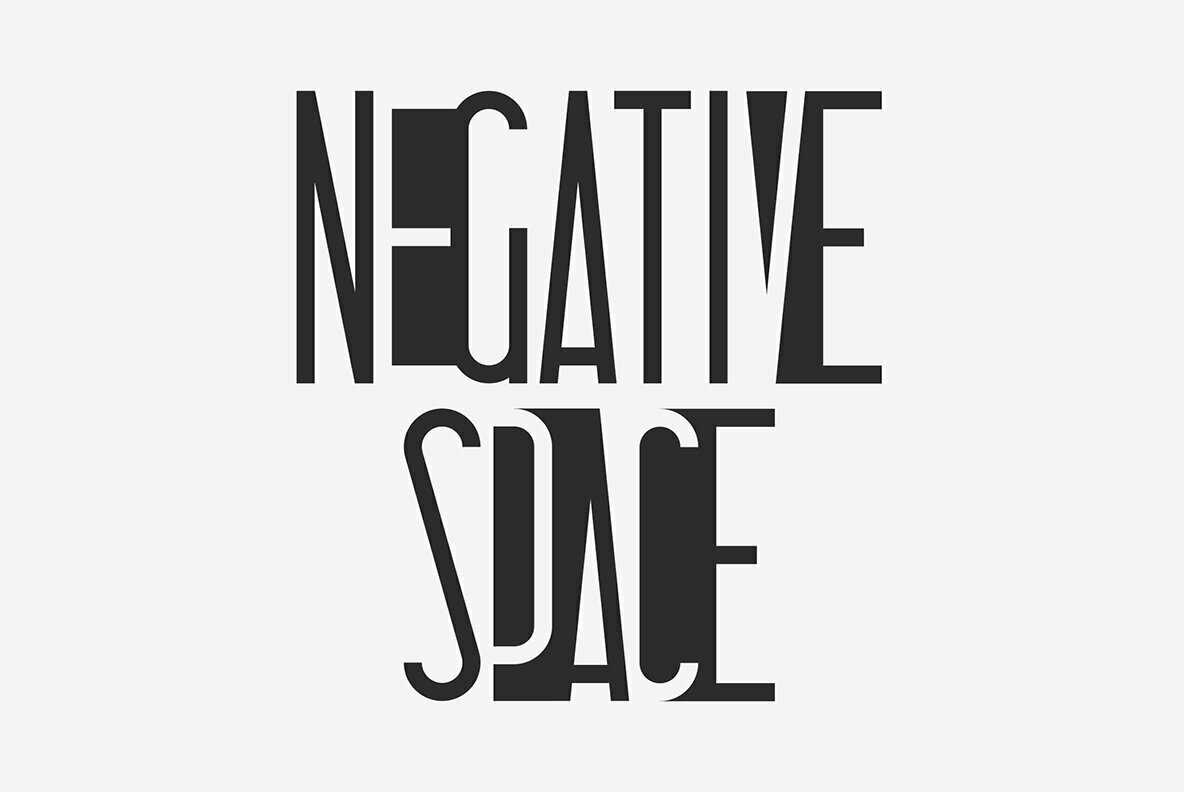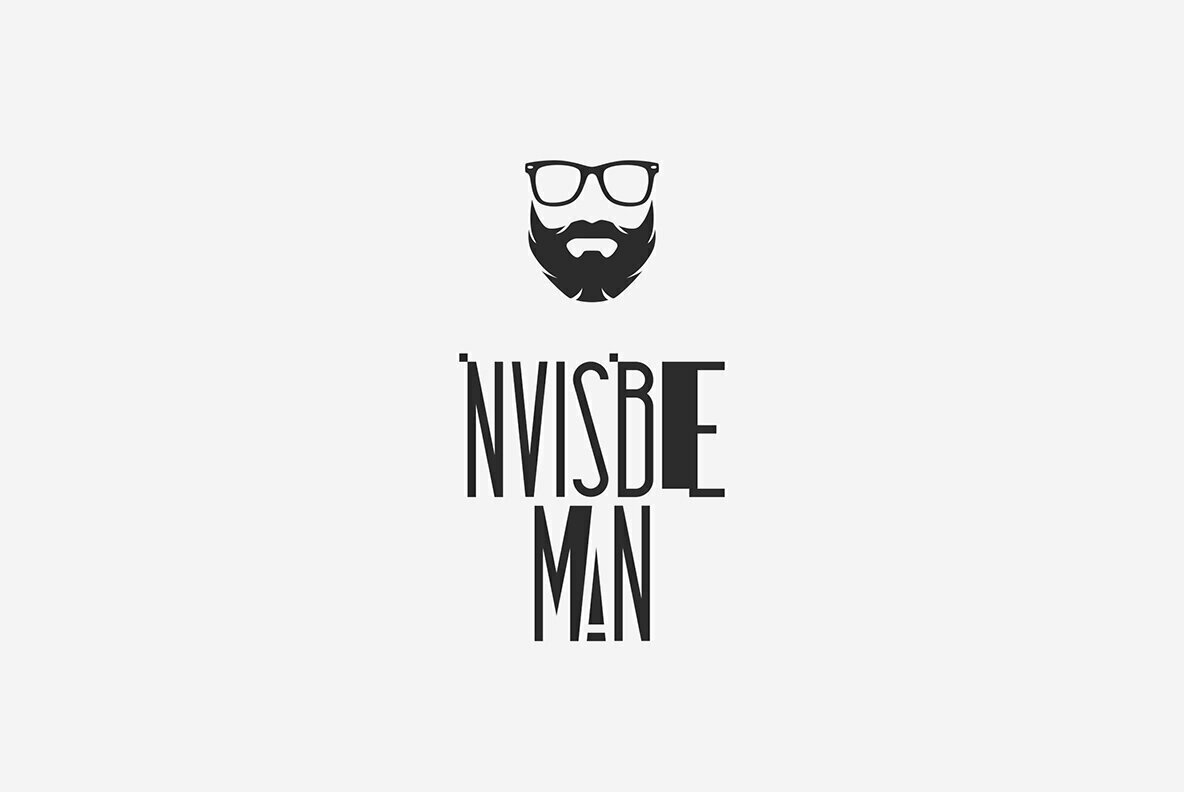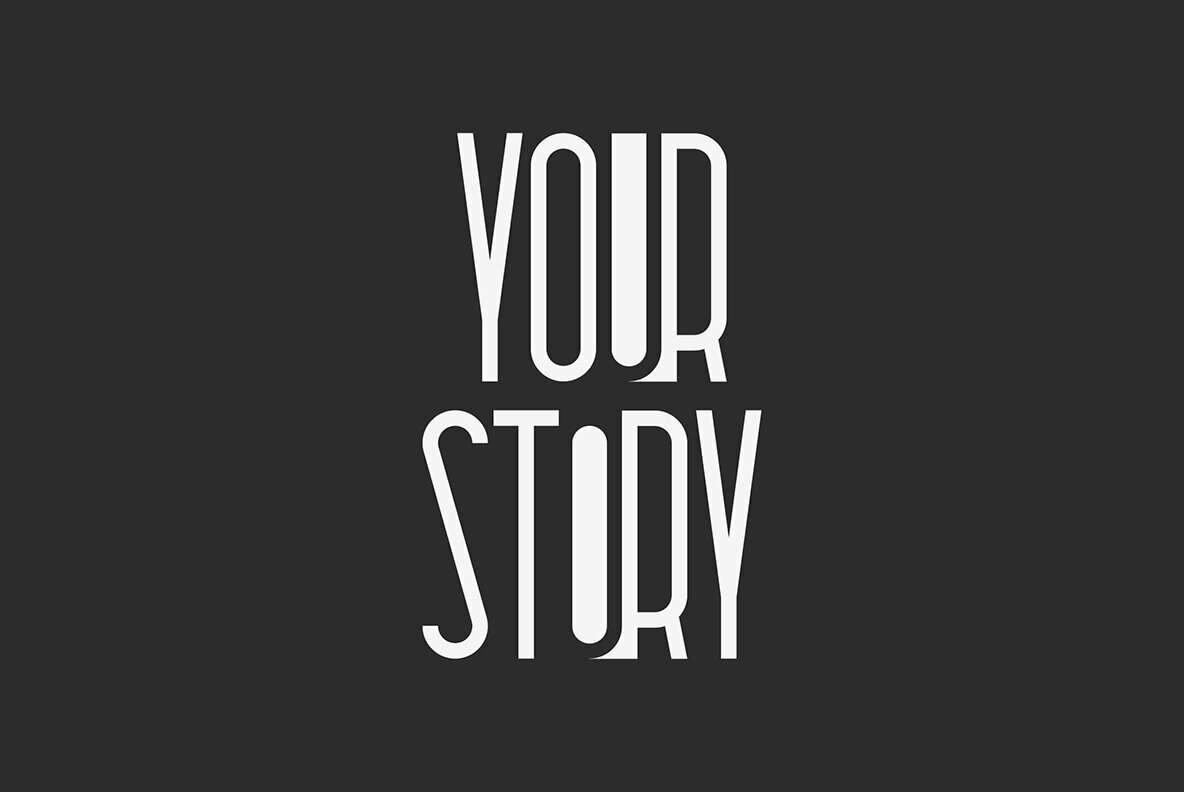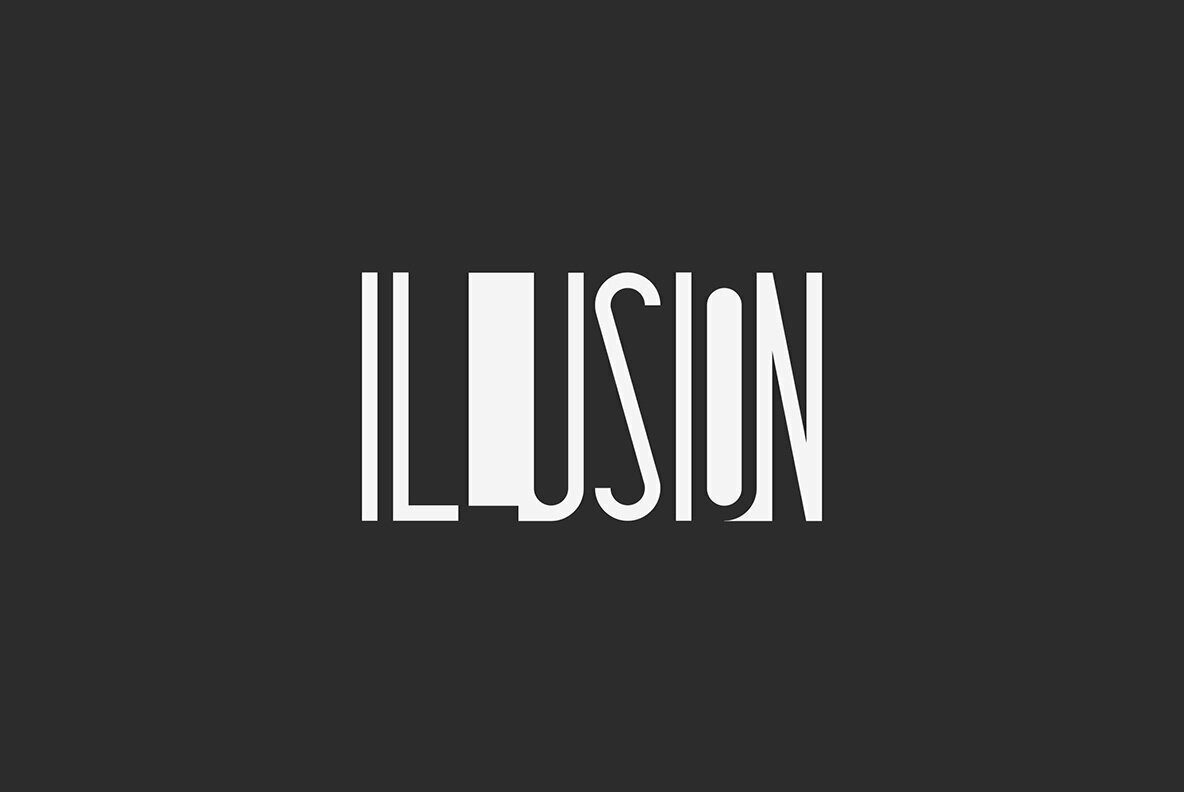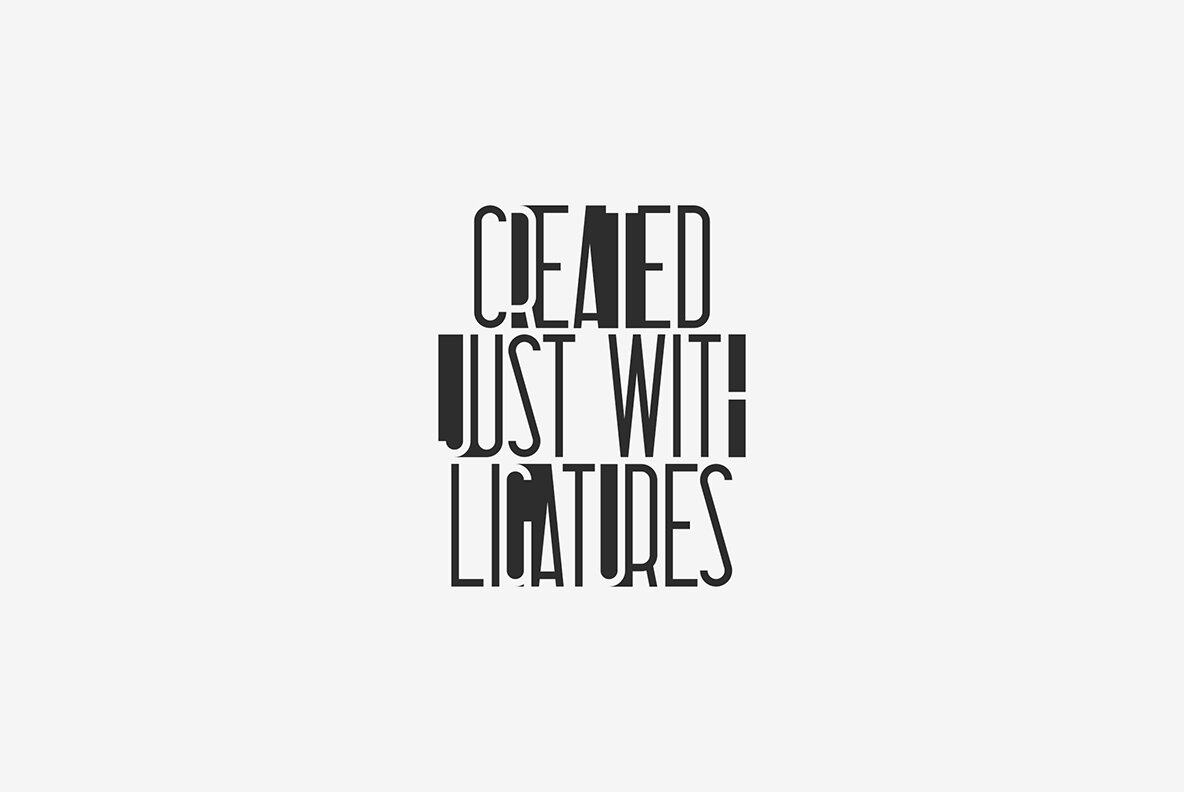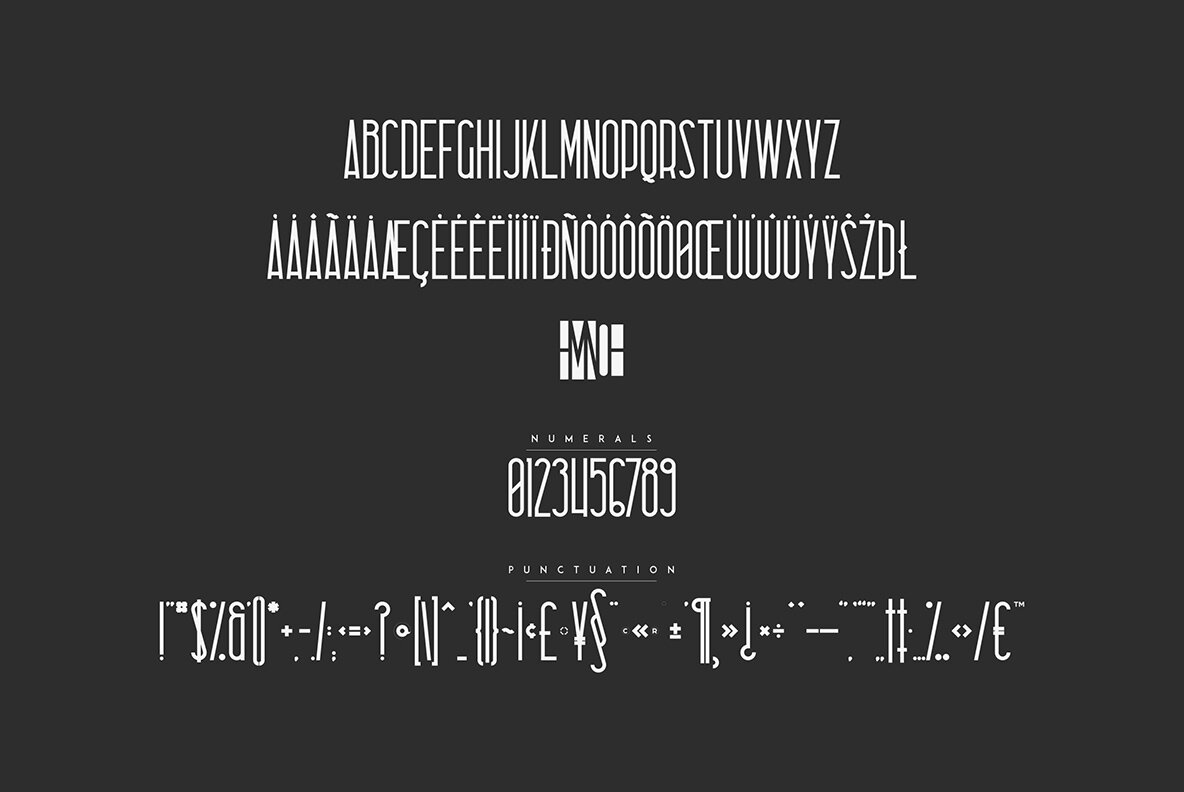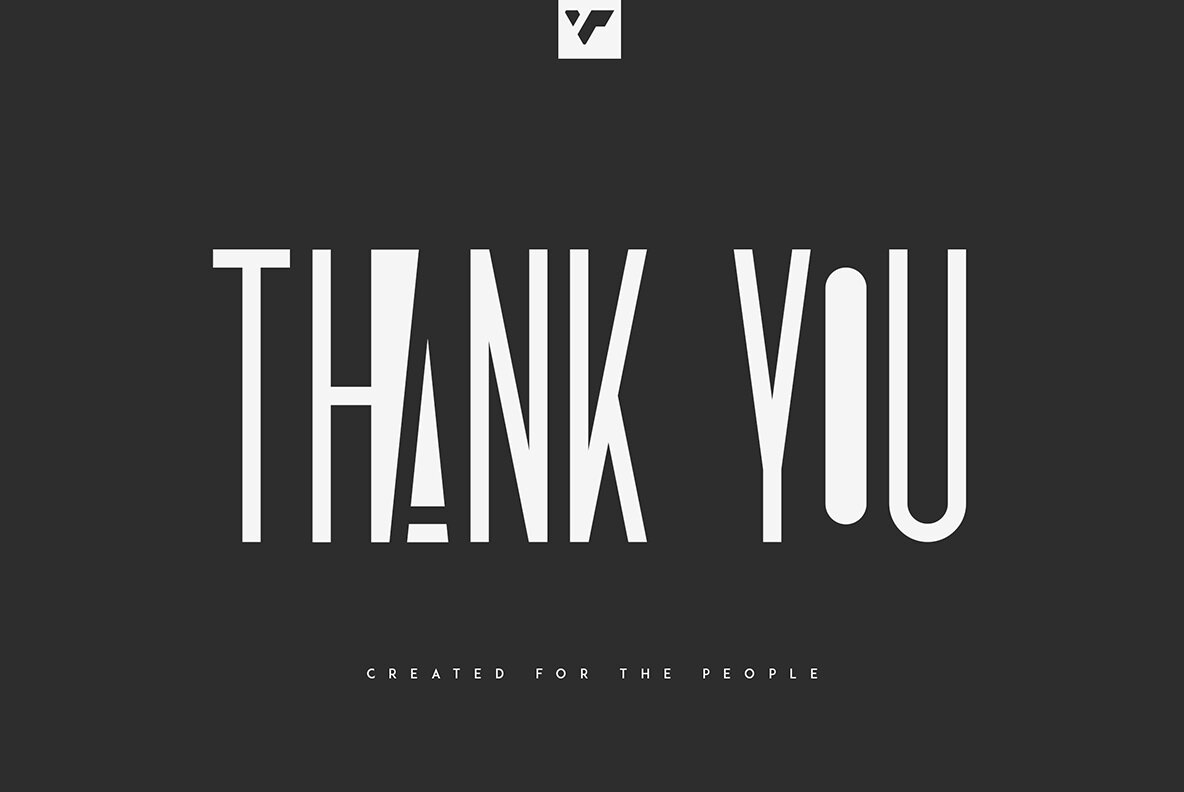
Sombre Font
Sombre
Sombre is a distinctive typeface that epitomizes modern design sensibilities with its stretched and negative space form. This font requires no advanced skills, making it ideal for both seasoned designers and newcomers. Its versatility allows it to shine across a broad spectrum of applications, from large-scale branding to subtle homeware designs. Its bold aesthetic works seamlessly for product packaging, magazine headers, and serves as a striking text overlay against any backdrop.Sombre: Stretched Negative Space Font